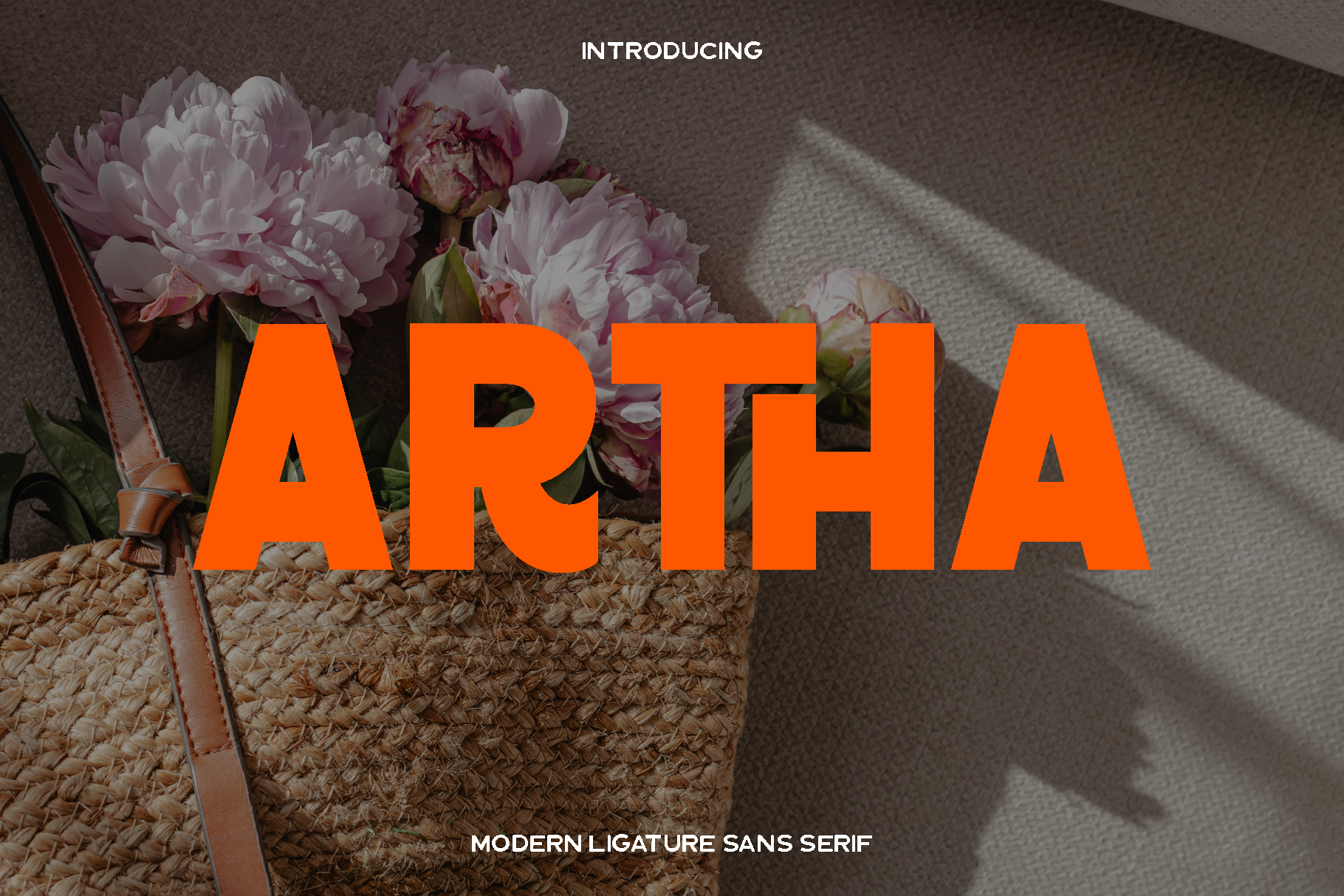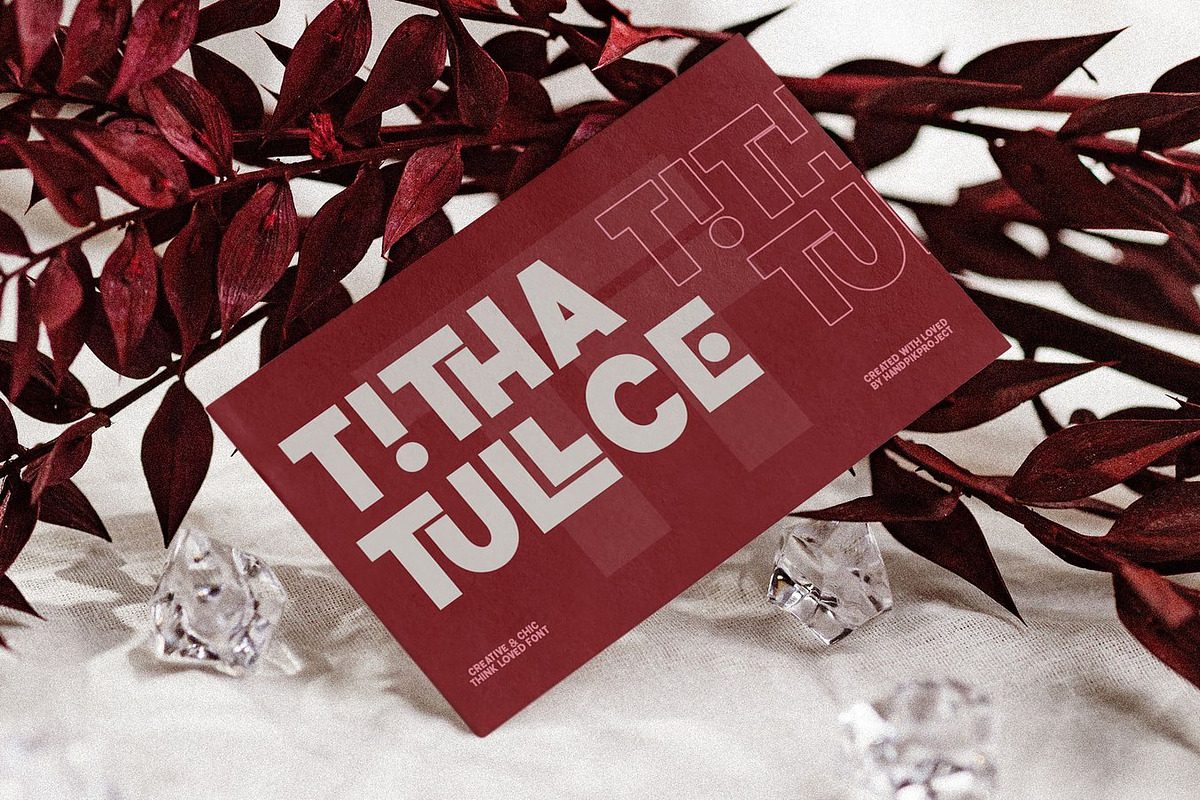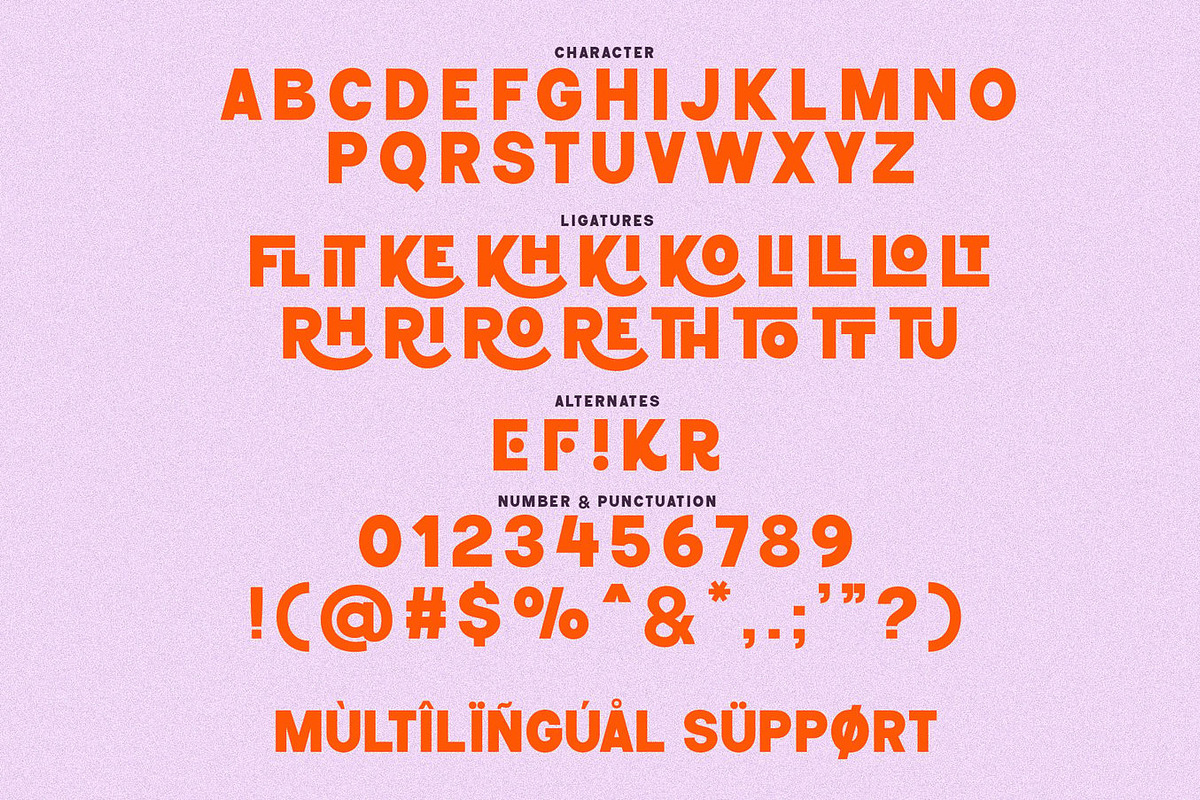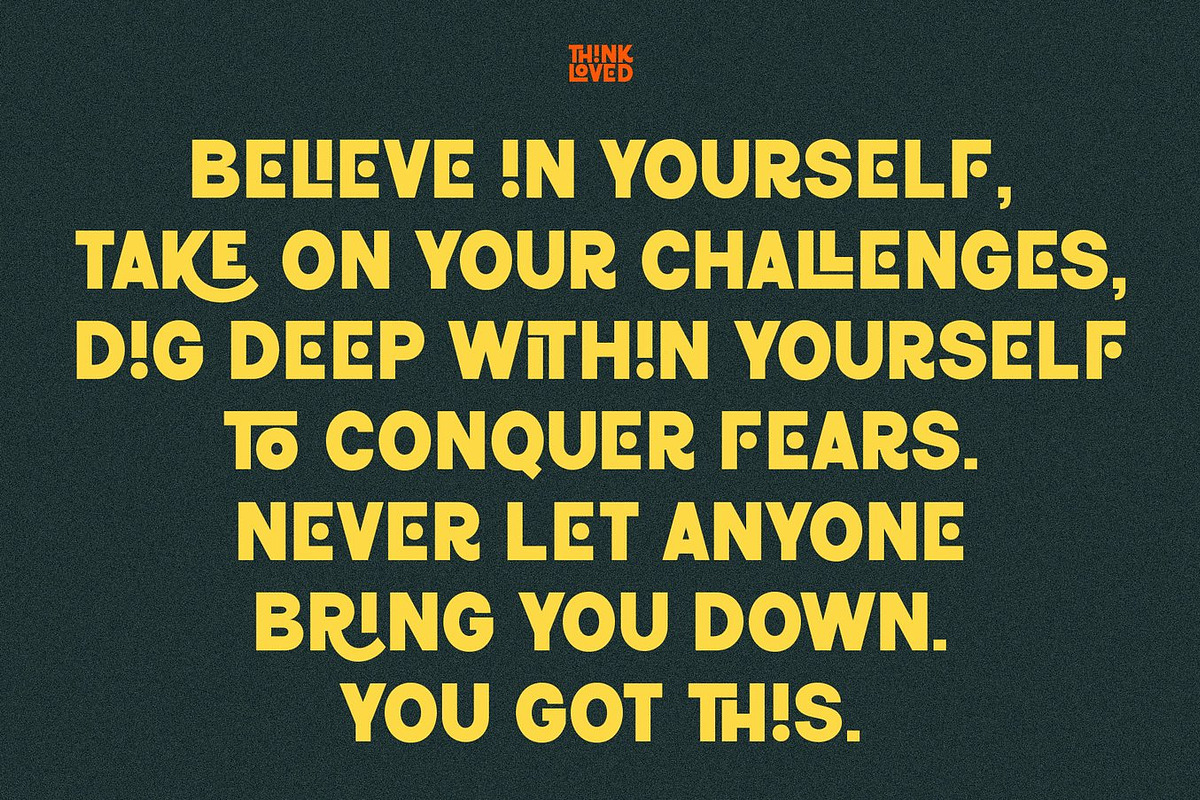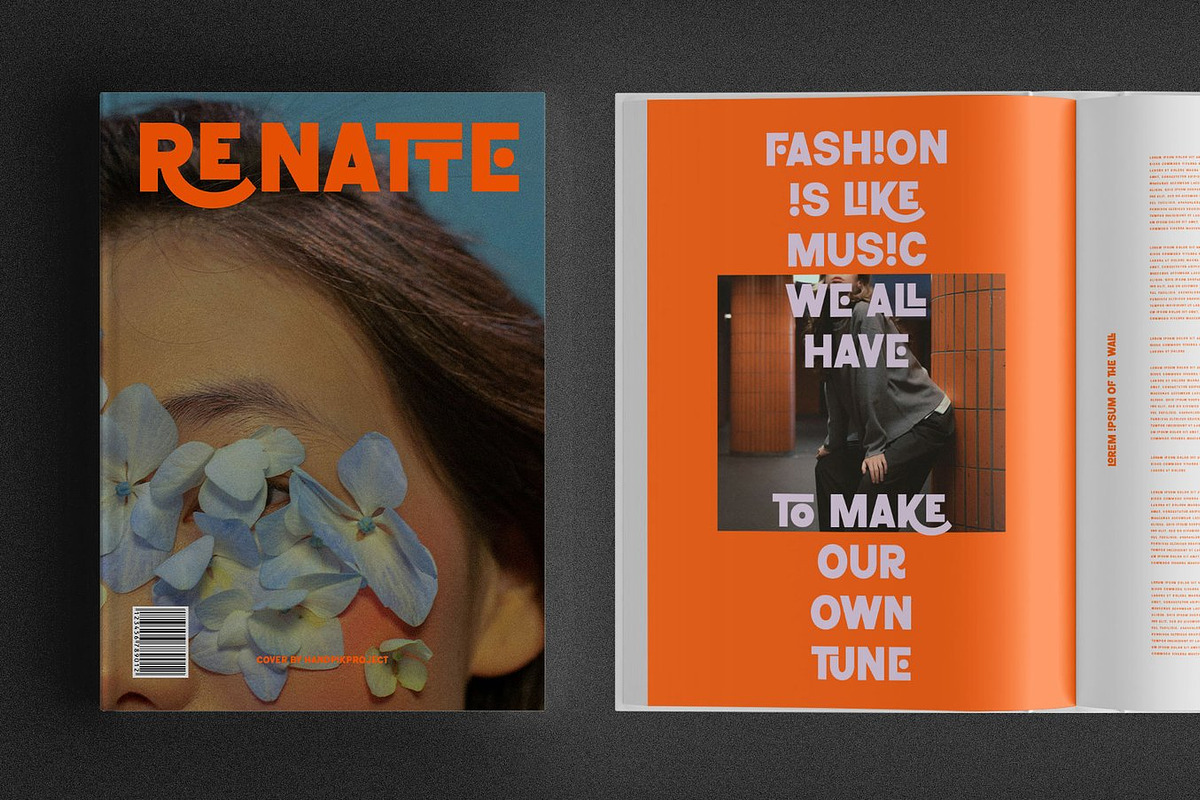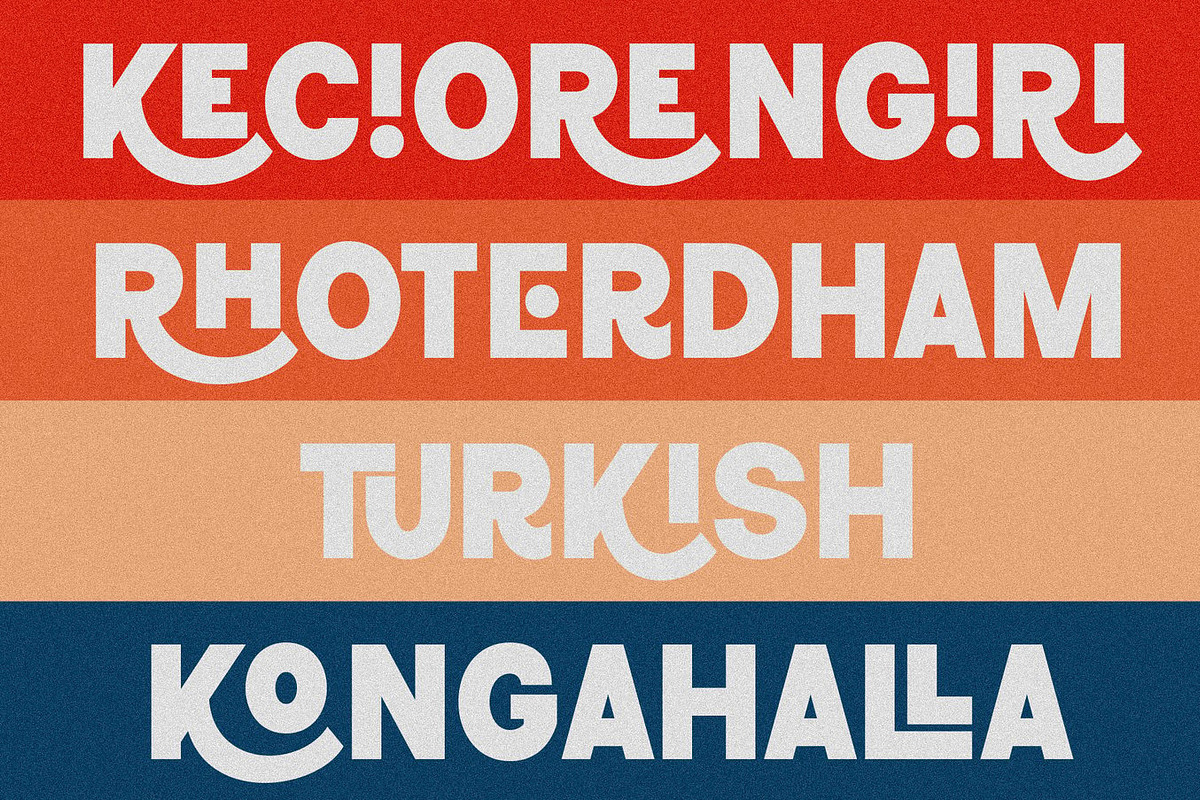
Artha - Modern Typeface
Artha is a thoughtfully designed typeface created to support a wide range of creative expressions. Built with balance, clarity, and style in mind, Artha combines a clean modern feel with subtle character that makes it adaptable across many design directions. Its well proportioned letterforms deliver a professional yet approachable tone, allowing your message to feel confident, readable, and visually refined.
Artha shines in editorial and branding projects where consistency and elegance matter. It works beautifully for books, magazines, logos, brand identities, photography overlays, inspirational quotes, blog headers, posters, and advertising materials. Whether used in bold headlines or longer text passages, Artha maintains strong readability while adding a polished visual presence.
The font feels modern, functional, and versatile, making it a reliable choice for both print and digital design. With multilingual support and stylistic features, Artha empowers designers to build cohesive layouts that communicate clearly across different platforms and audiences. It is an excellent everyday typeface for creatives who value flexibility without sacrificing style.
Artha Font Features:
• Uppercase and lowercase characters
• Numerals and functional glyphs
• Stylistic features included
• Multilingual support